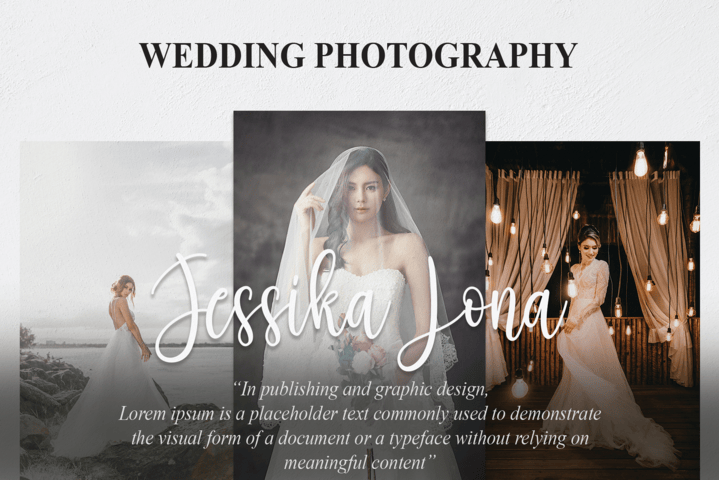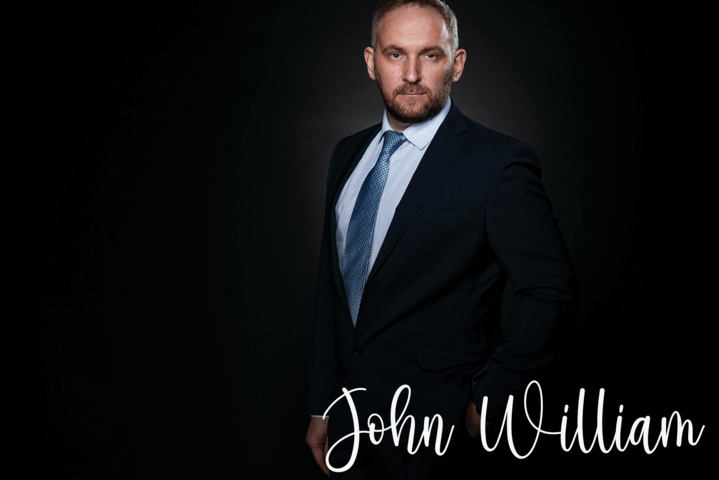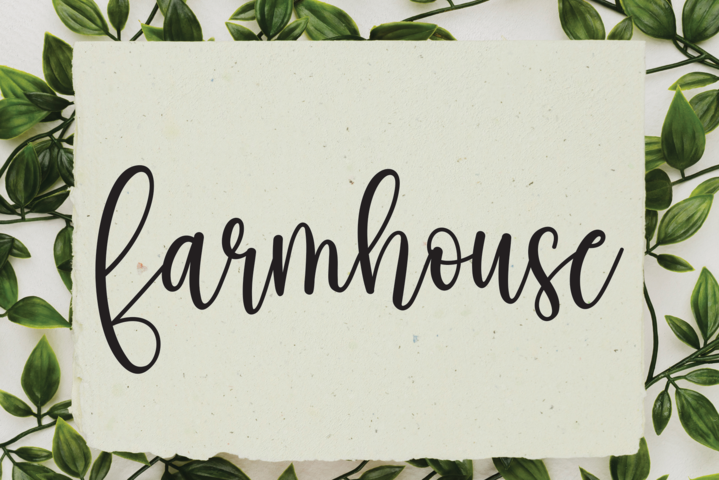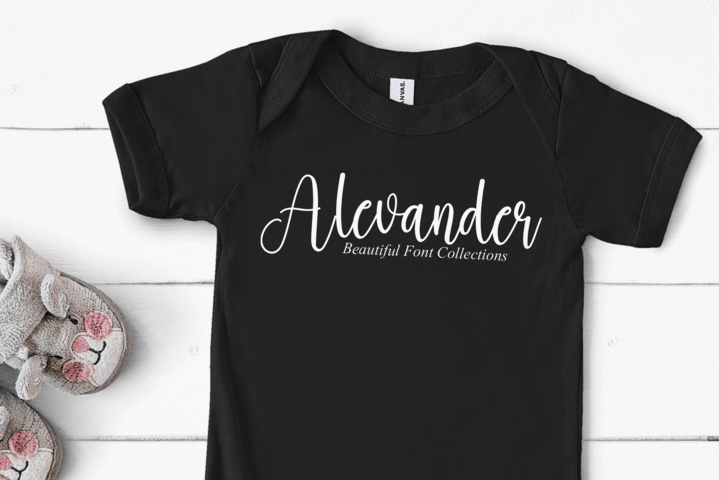
Autography Script Typeface
This is a delicate and elegant handwritten font. Its distinct and well balanced letters make this font a masterpiece. Fall in love with its incredibly versatile style and use it to create spectacular designs!